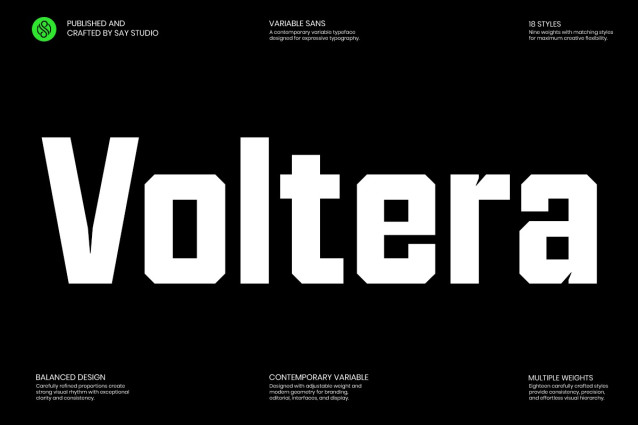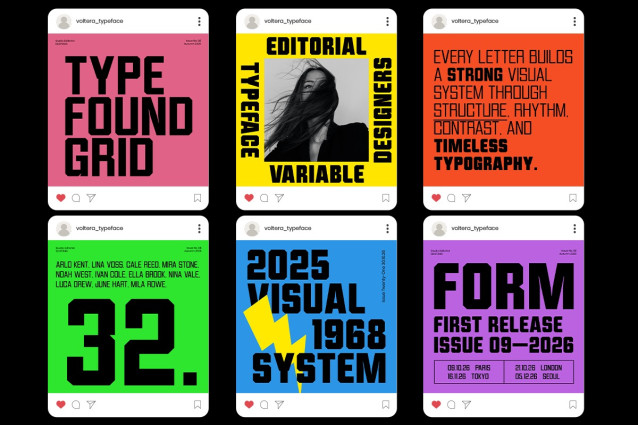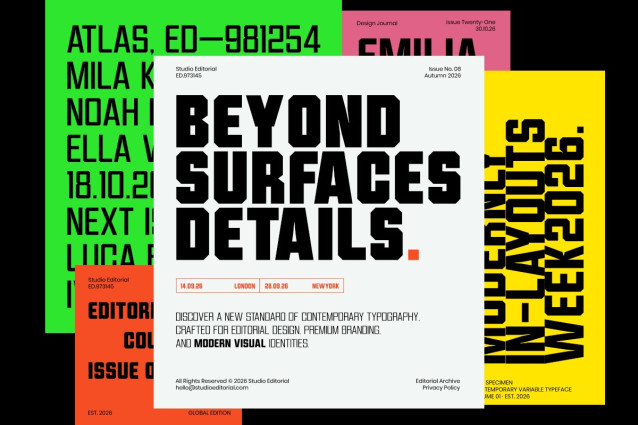
Voltera – Condensed Sans Serif Font Family
Voltera is a professional condensed sans serif font family crafted for designers who need bold typography with maximum impact and exceptional versatility. Featuring 9 carefully engineered weights, from Thin to Black, along with matching Italic styles, Voltera delivers a complete collection of 18 fonts that adapts effortlessly to every creative challenge.
Its tall proportions, geometric construction, and clean industrial character make it an excellent choice for modern branding, editorial design, advertising, sports graphics, packaging, posters, technology, corporate identity, and digital media.